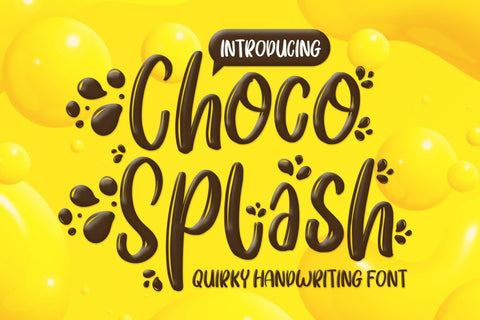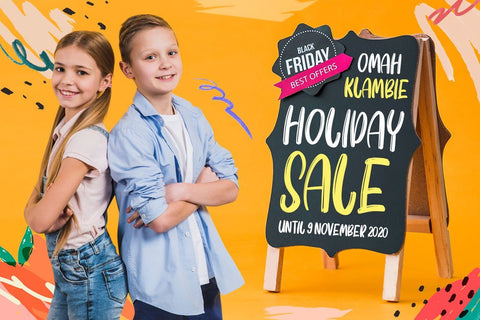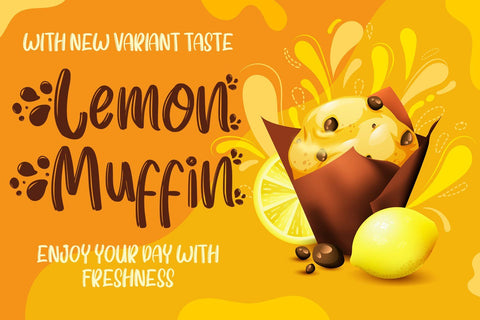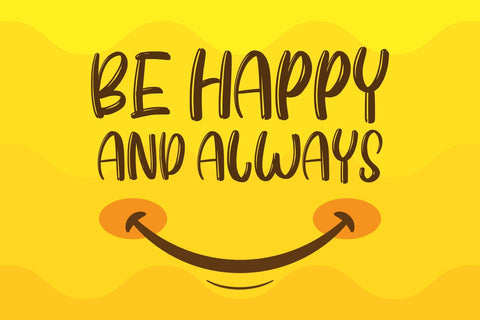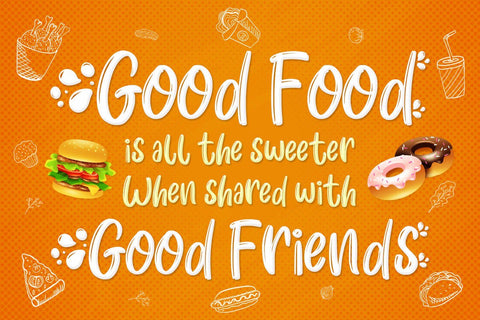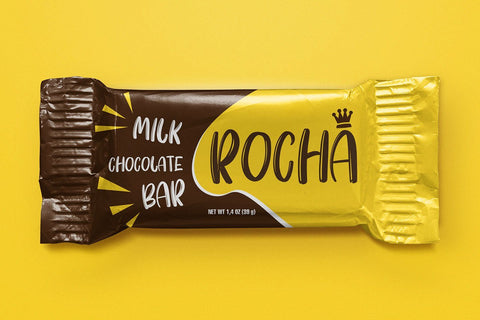
Choco Splash - Fun Font
Choco Splash is a playful and cute decorative font with an alternate splattered character. This enchanting font will turn any creative idea into a true standout!